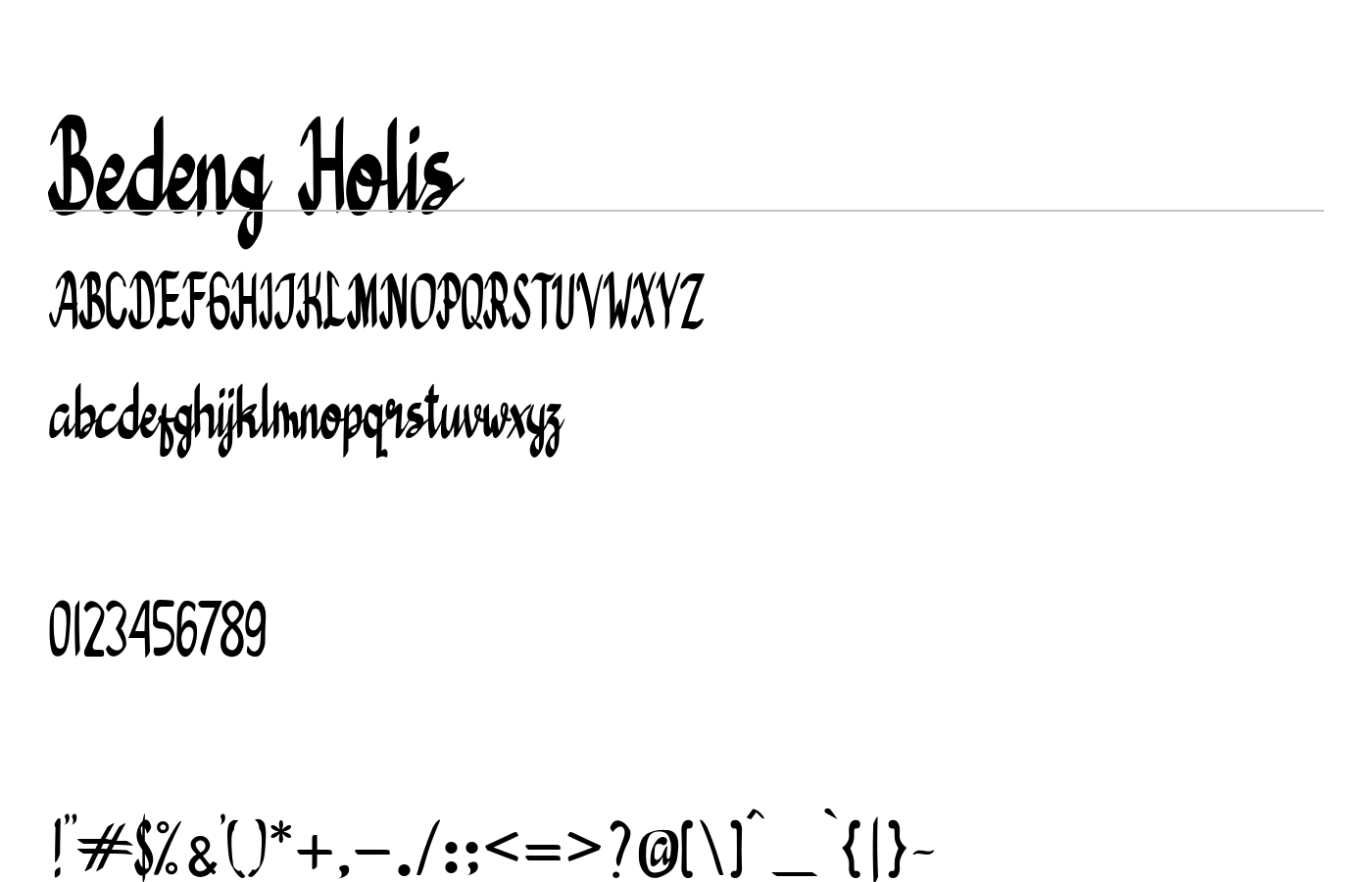
Bedeng Holis is a distinctive serif font with a quirky, handwritten feel characterized by uneven strokes and playful, slightly condensed letterforms. Its tall, narrow characters with moderate contrast and unique calligraphic touches make it ideal for creative headlines, logos, and artistic branding where a touch of personality and informal elegance is desired. This font works well in designs seeking a bold yet approachable look that stands out with its charming, hand-crafted vibe.
Bedeng Holis Font